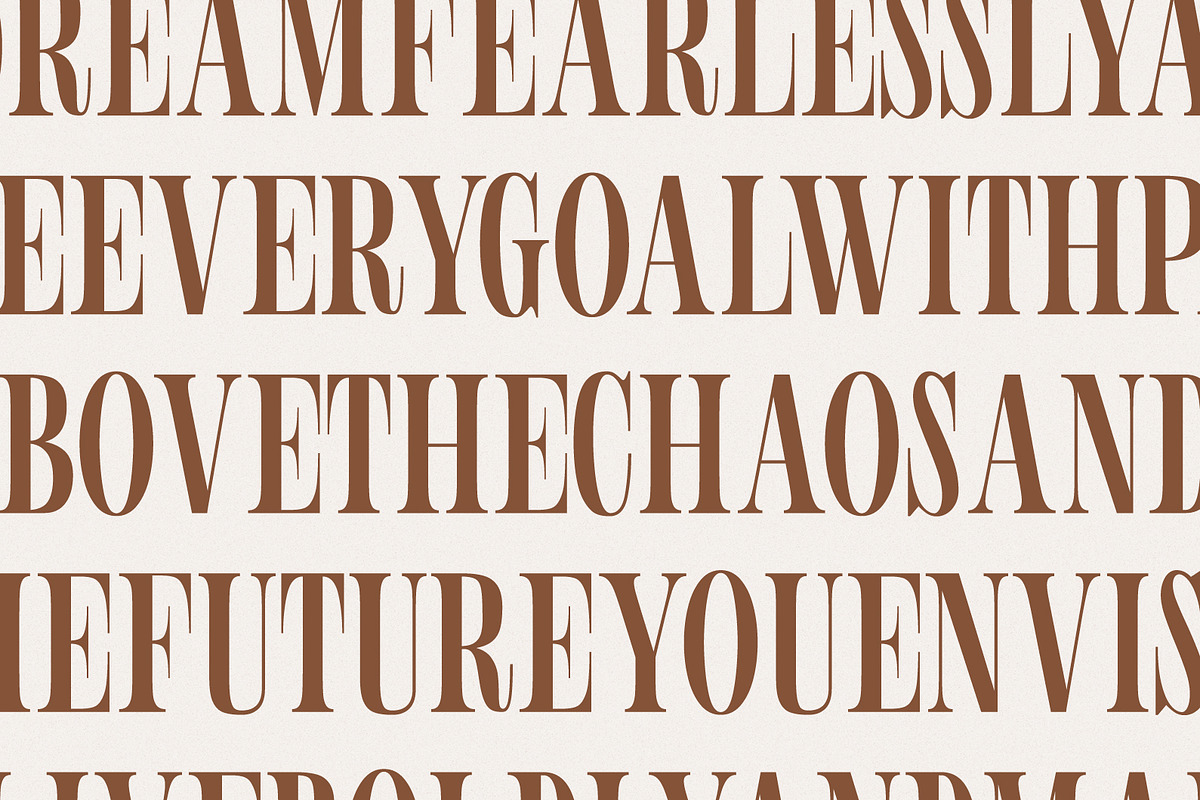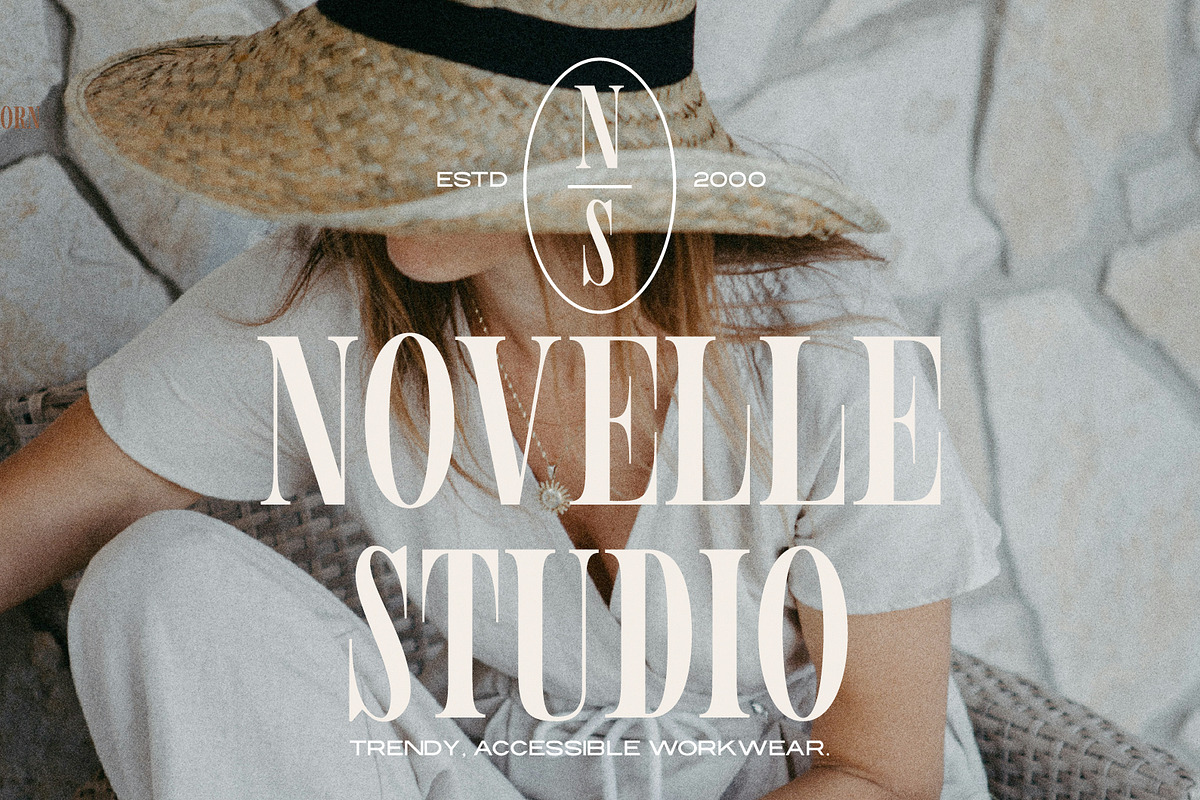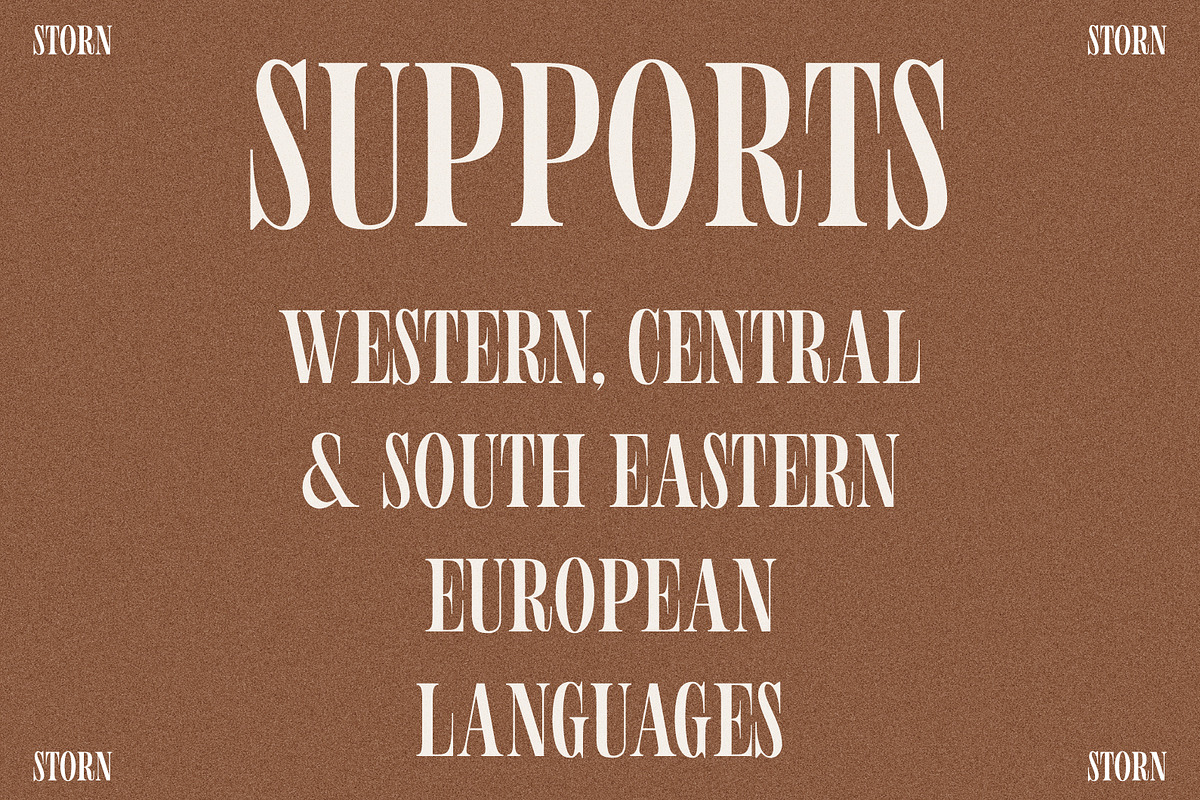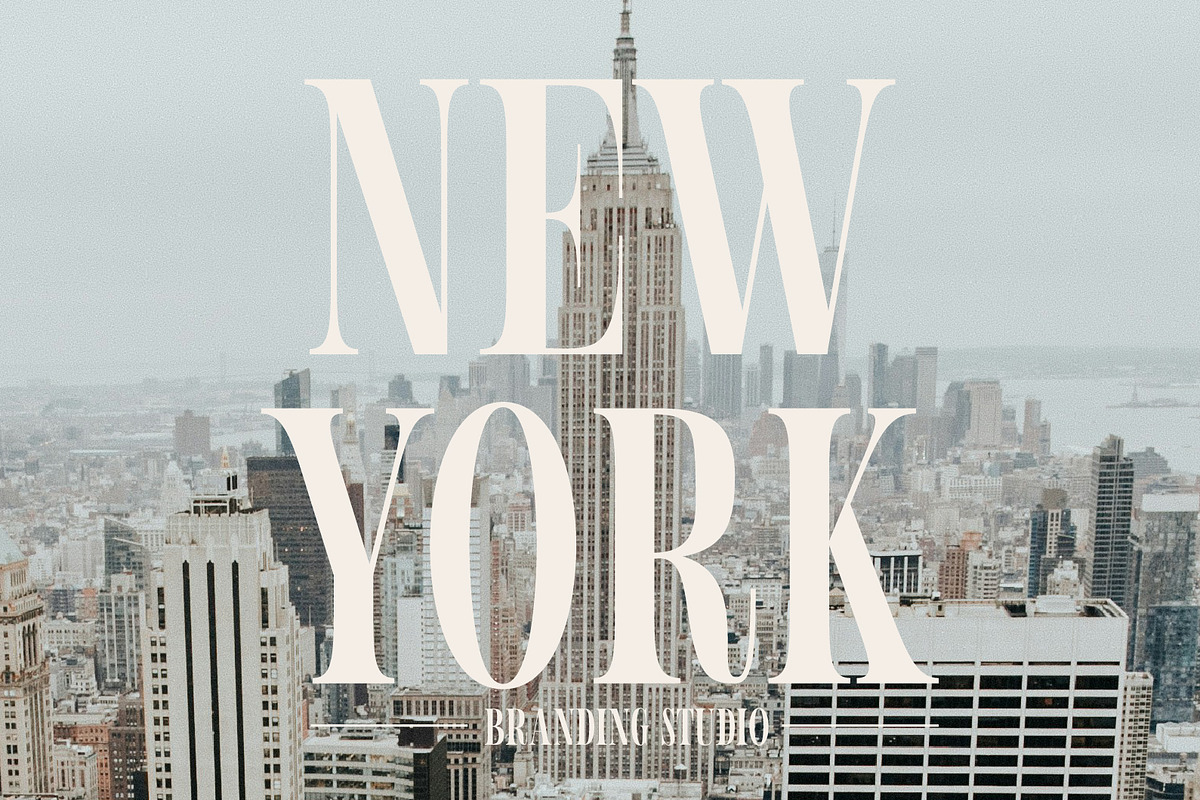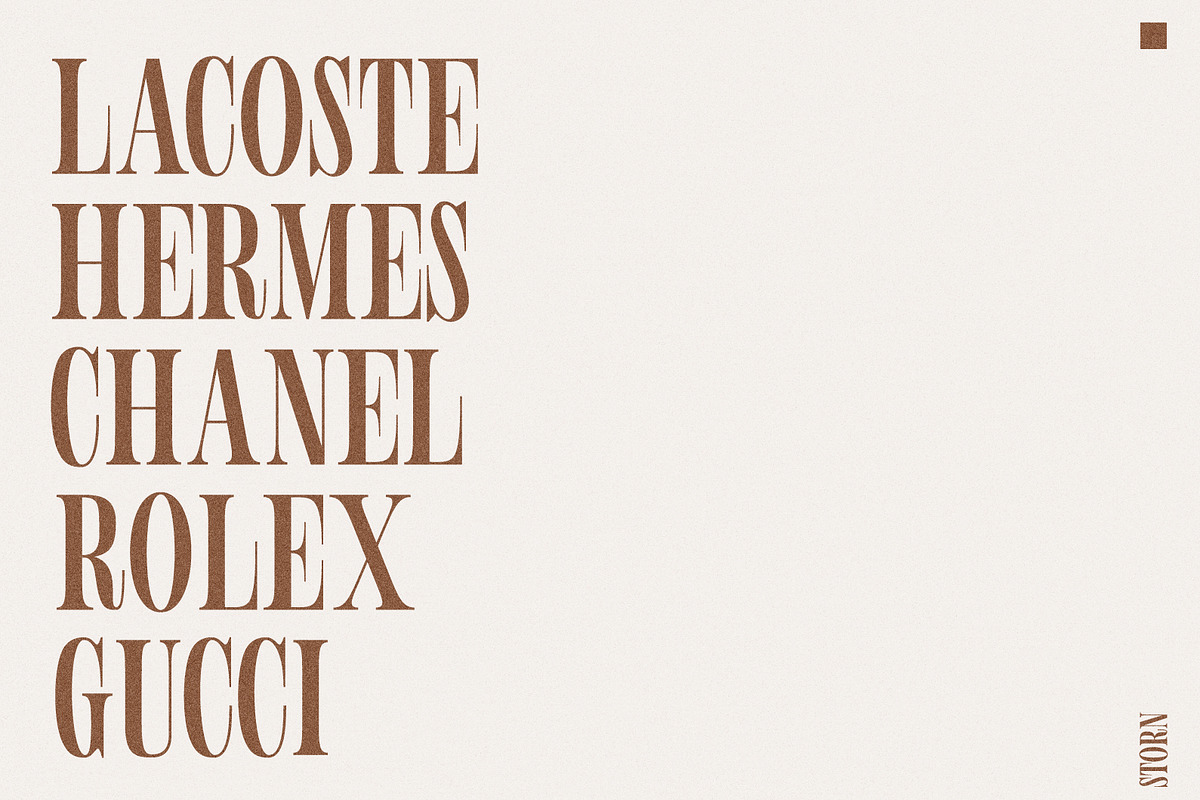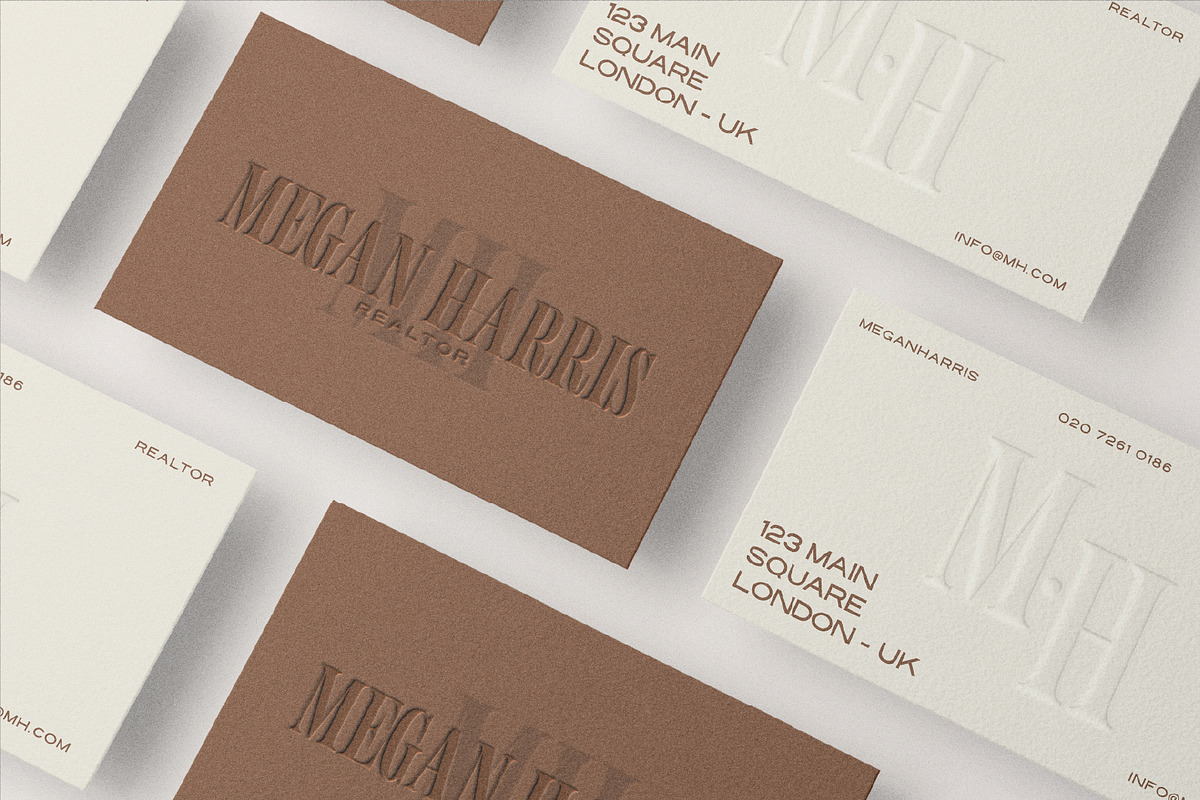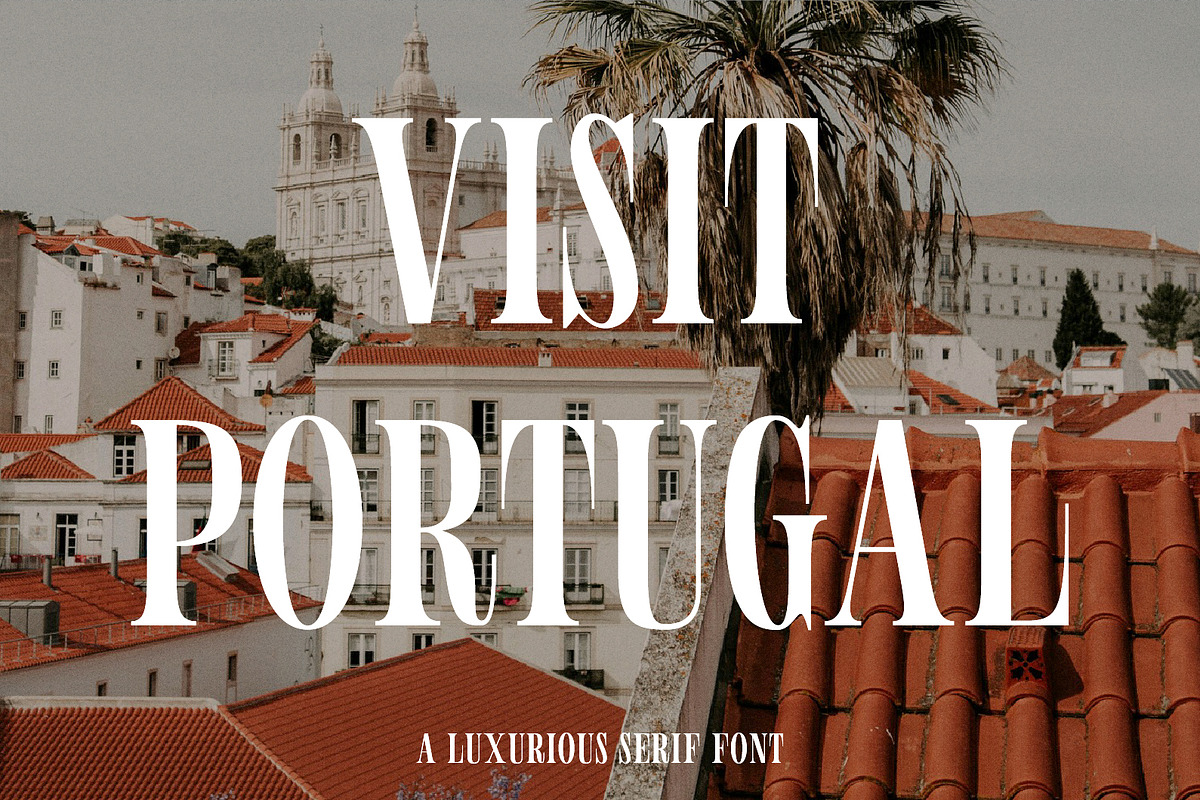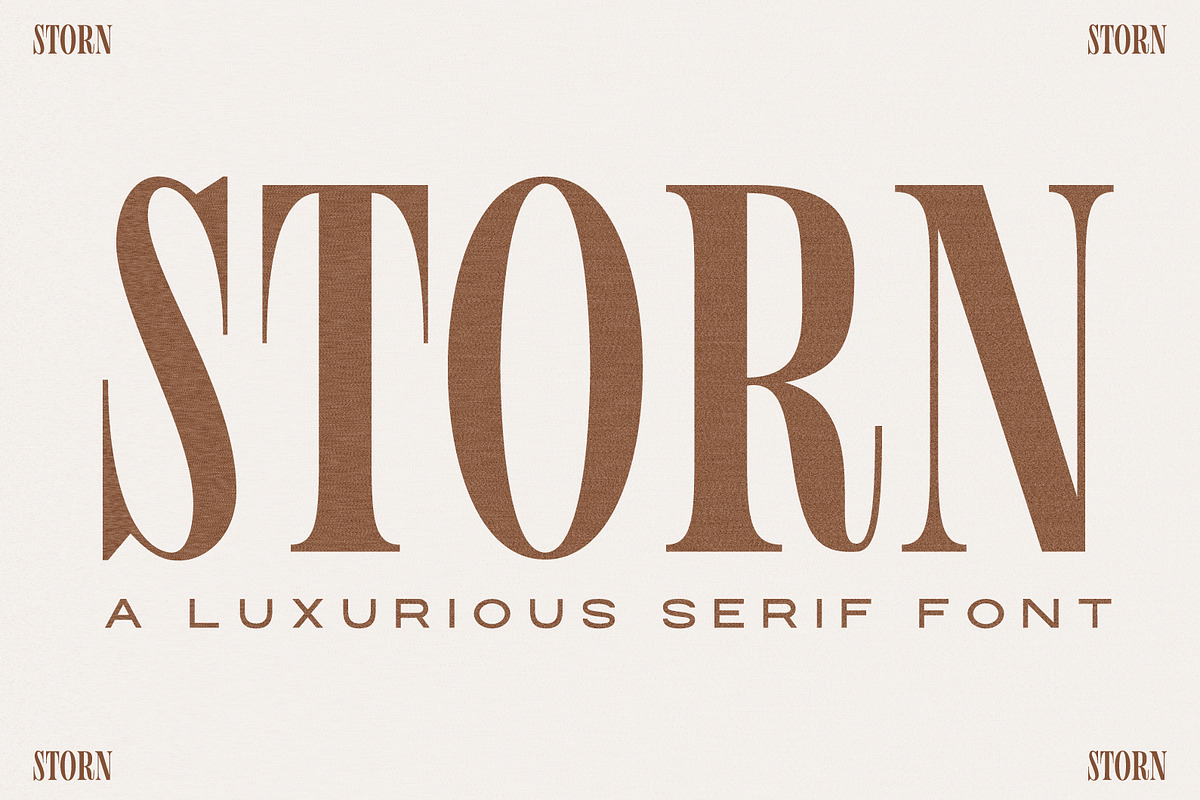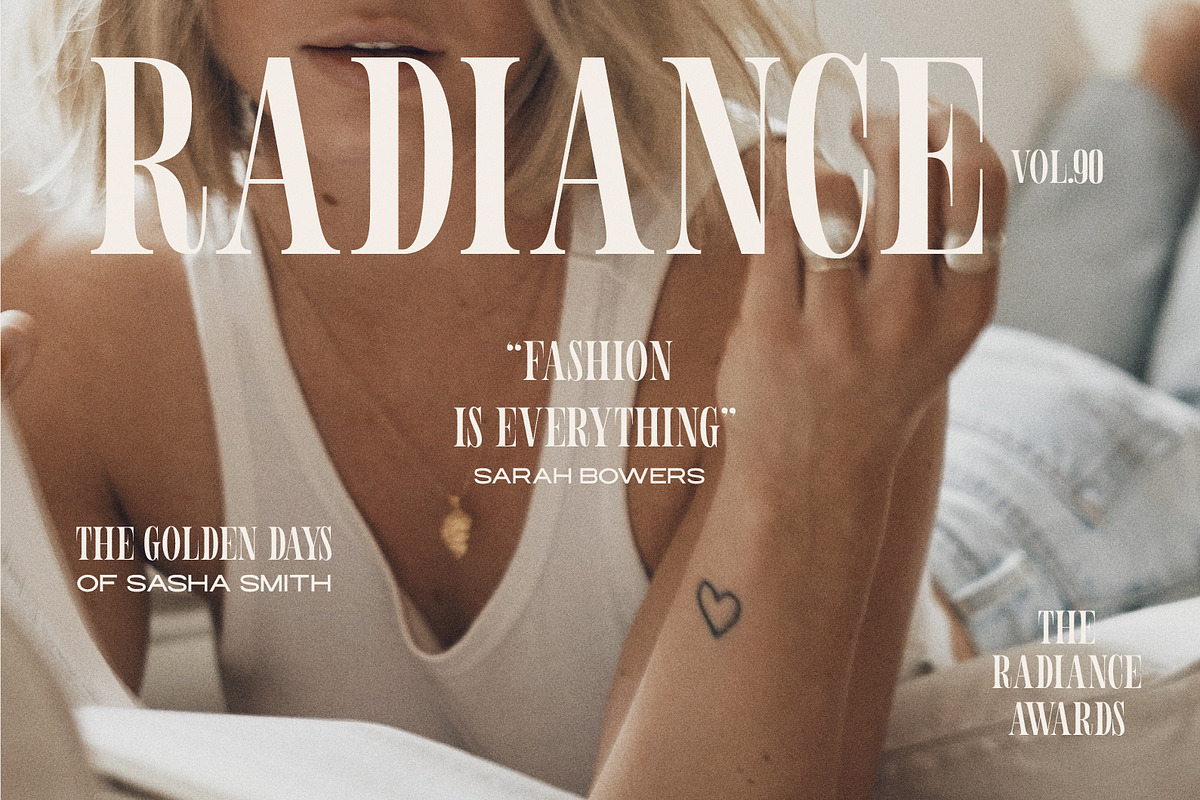
STORN A Stylish Uppercased Serif
Introducing Storn, a bold and elegant uppercase serif font designed to exude sophistication and timeless beauty. Perfect for branding, editorial design, logos, invitations, and luxurious packaging, Storn combines modernity with classic refinement to bring a high-end aesthetic to your projects.
The sharp contrasts and balanced proportions make it ideal for fashion, lifestyle, and premium branding, ensuring every design stands out with effortless charm. Whether you’re creating a striking logo, a captivating headline, or a stylish layout, Storn will elevate your work with its unparalleled elegance and versatility.
Multilingual Support + Accents